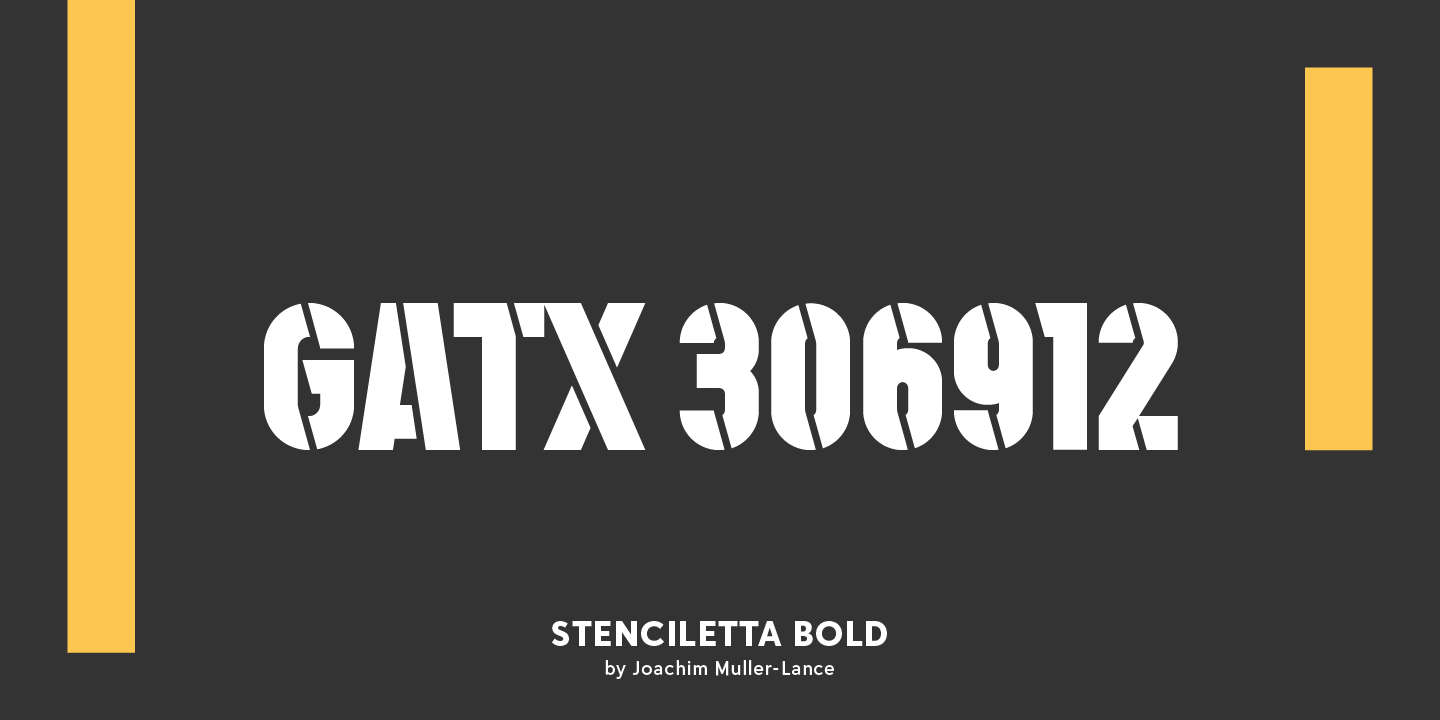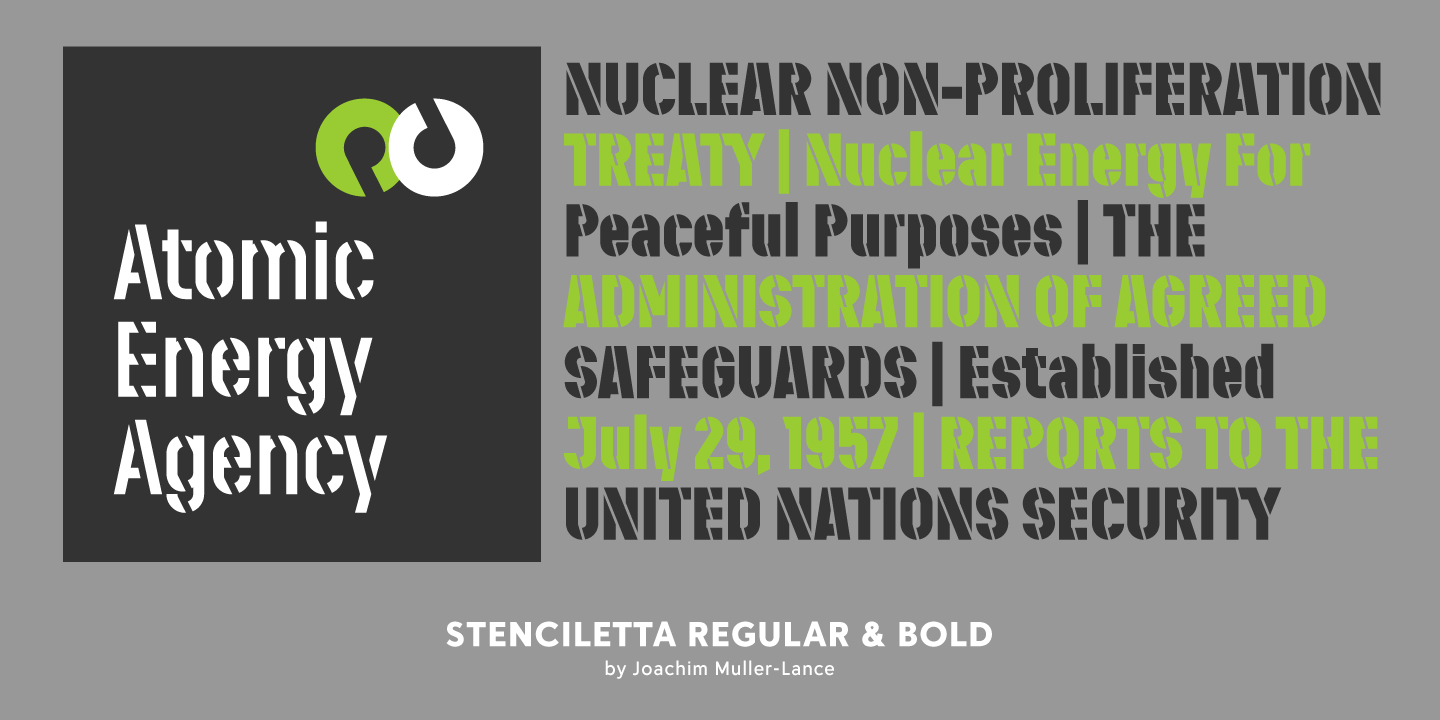
Evoking an air of mechanical engineering, construction and cargo shipping, a stencil is basically a shaped hole through which paint is applied to the surface under